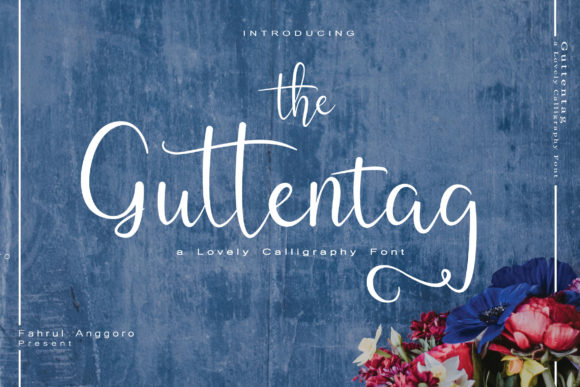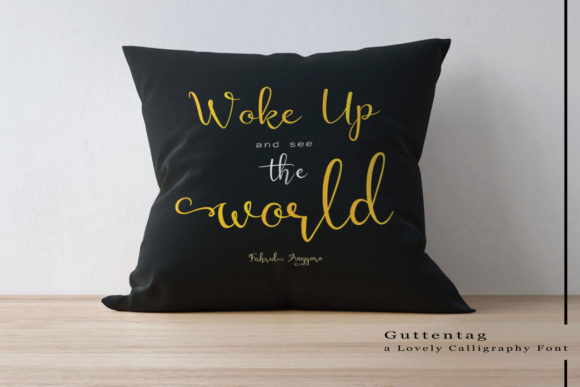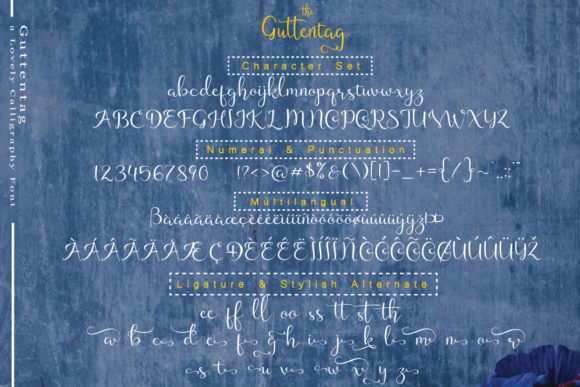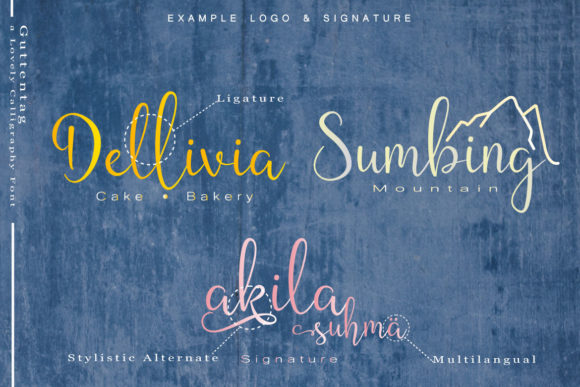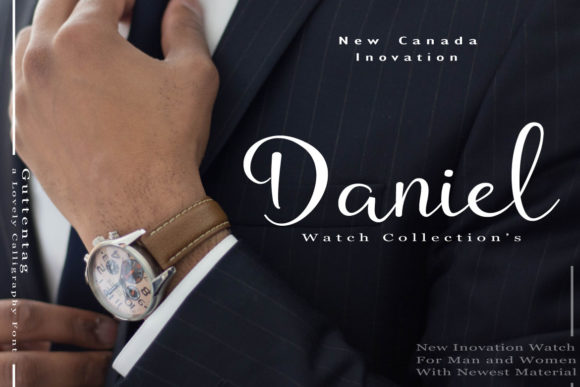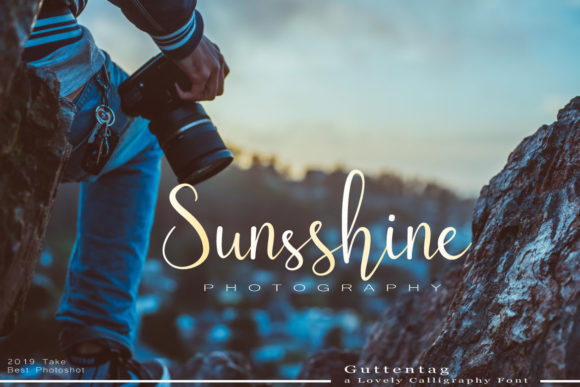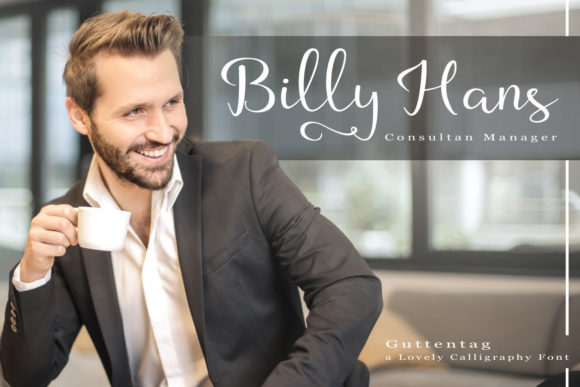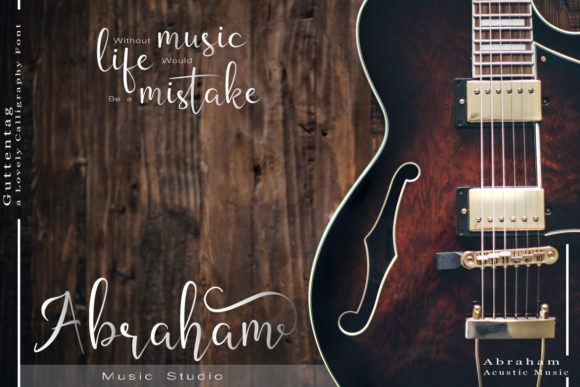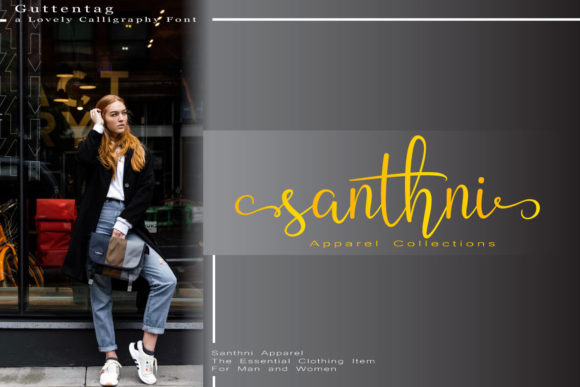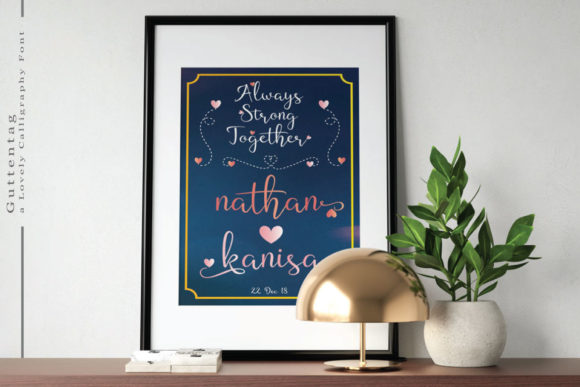
Guttentag Font
About Guttentag Font
The Guttentag is a lovely calligraphy font. It’s suitable for all your business and project design needs such as wedding events, logos, branding, quote, signature, watermark, business card, movie title, posters, Interior designs and much more!